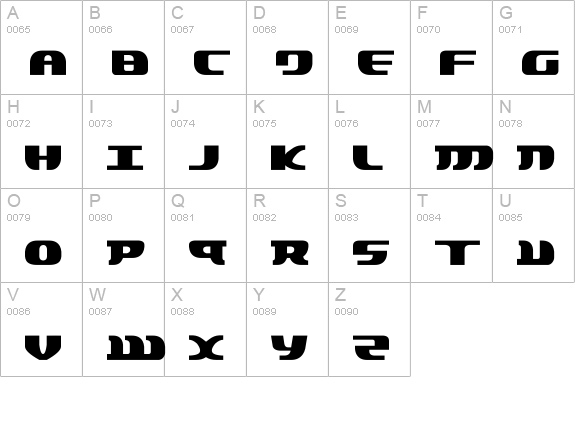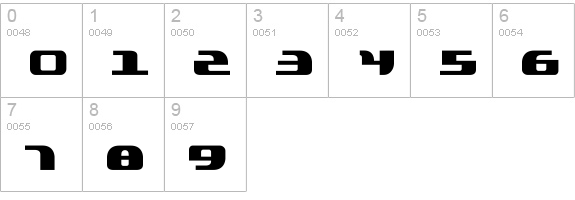
The Lord of the Sith font is a powerful and commanding typeface that exudes a dark and mysterious aura. Inspired by the iconic villains of the galaxy far, far away, this font is perfect for projects that require a touch of evil or a sense of foreboding. Its sharp, angular design conveys a sense of authority and dominance, making it ideal for titles, logos, and other display purposes. Best of all, the Lord of the Sith font is available for free download at FontsMarket.com. Whether you're a designer looking to add a touch of darkness to your creations or a fan of all things Sith, this font is sure to leave a lasting impression. Embrace the power of the dark side with the Lord of the Sith font today!